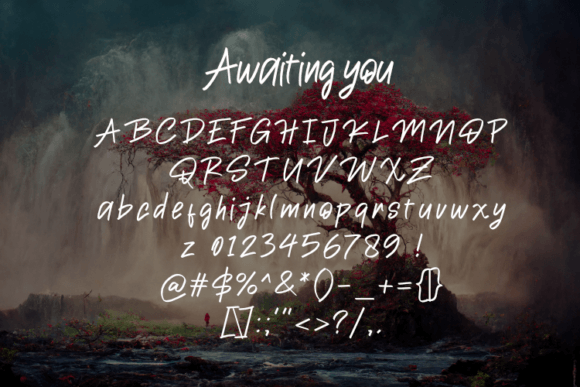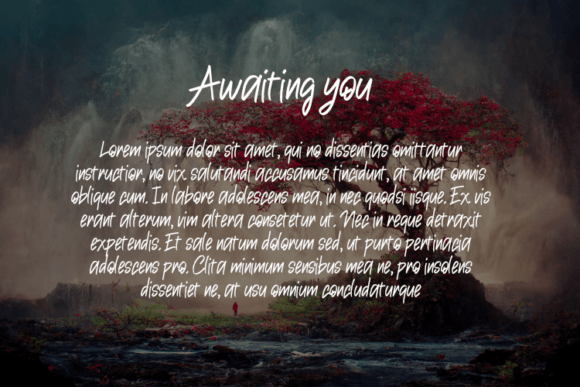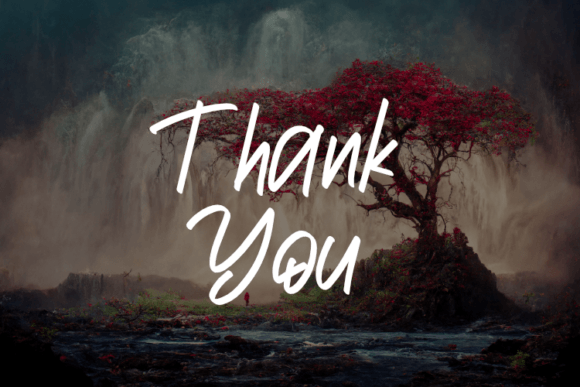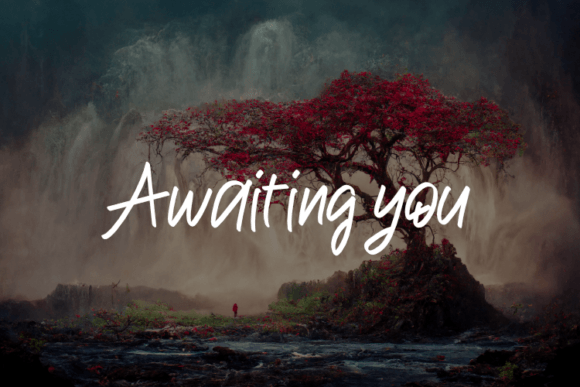
Awaiting You Font: Elevate Your Design Game with This Exquisite Typeface
Are you tired of using the same old fonts for your apparel and product designs? Look no further! Introducing the Awaiting You Font, a versatile and stunning typeface that’s about to take your creations to the next level. This font is designed to be compatible with any design tool or software, making it a perfect addition to your design arsenal.
Unleash Your Creativity with Awaiting You Font
The Awaiting You Font is more than just a typeface – it’s a design experience. With its unique and elegant style, it’s perfect for all types of designs, from fashion and apparel to product packaging and branding. This font amplifies your creativity, allowing you to create designs that are as colorful as a rainbow and as unique as a fingerprint.
Limitless Inspiration at Your Fingertips
With the Awaiting You Font, you’ll never run out of inspiration. This one-of-a-kind typography marvel offers a limitless allotment of creative possibilities. Whether you’re designing a t-shirt, a business card, or a product label, this font will help you create stunning designs that capture attention and leave a lasting impression.
Your Passport to the World of Design
The Awaiting You Font is more than just a font – it’s your passport to the world of design. With this font, you have the freedom to create designs that reflect your personality and style. Whether you’re a seasoned designer or a crafty DIY enthusiast, this font will help you take your designs to new heights.
Why Choose Awaiting You Font?
- Versatility: The Awaiting You Font is perfect for all types of designs, from fashion and apparel to product packaging and branding.
- Unique Style: The Awaiting You Font has a unique and elegant style that’s sure to make your designs stand out.
Tips for Using Awaiting You Font
Here are some tips for getting the most out of the Awaiting You Font:
- Experiment with different colors: The Awaiting You Font looks great in a variety of colors, so don’t be afraid to experiment and find the perfect hue for your design.
- Play with font sizes: This font looks great in a range of font sizes, from small and delicate to large and bold.
- Combine with other fonts: The Awaiting You Font pairs well with other fonts, so feel free to get creative and combine it with your favorite typefaces.
In conclusion, the Awaiting You Font is a game-changer for designers and crafters. With its unique style, seamless integrations, and versatility, this font is perfect for taking your apparel and product designs to the next level. Whether you’re a seasoned designer or just starting out, this font is sure to inspire you to create stunning designs that capture attention and leave a lasting impression.